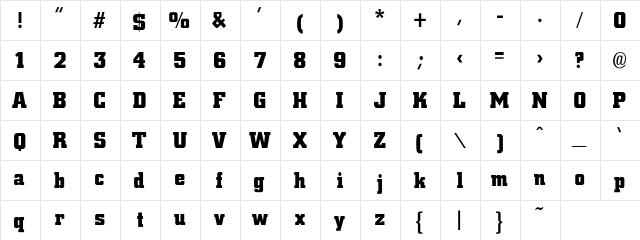
City-Bold-Bold Regular
Design Context for City-Bold-Bold Typeface
City-Bold-Bold takes a measured approach to typography — its balanced proportions and neutral character make it a reliable workhorse for both digital and print work. Its bold stroke weight gives it real presence on the page.
Pro Tip: Pair City-Bold-Bold with a font of contrasting weight or personality to build a more expressive typographic hierarchy.